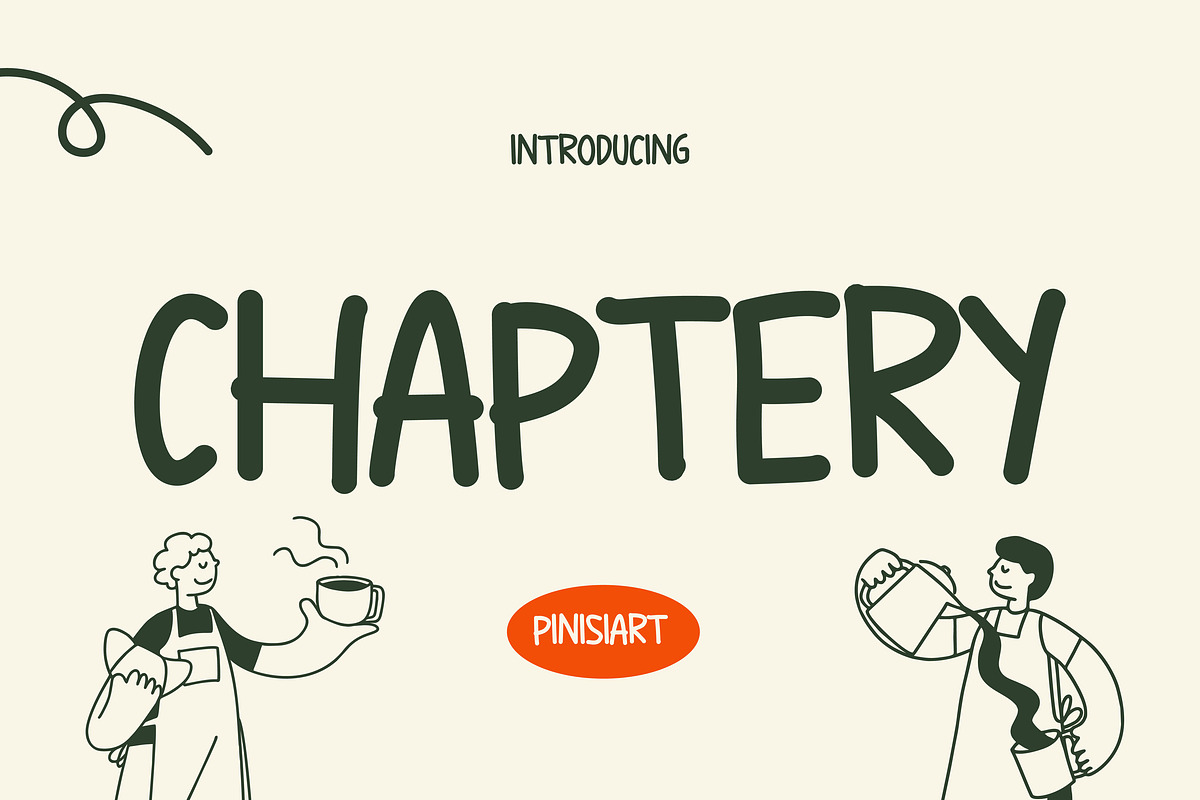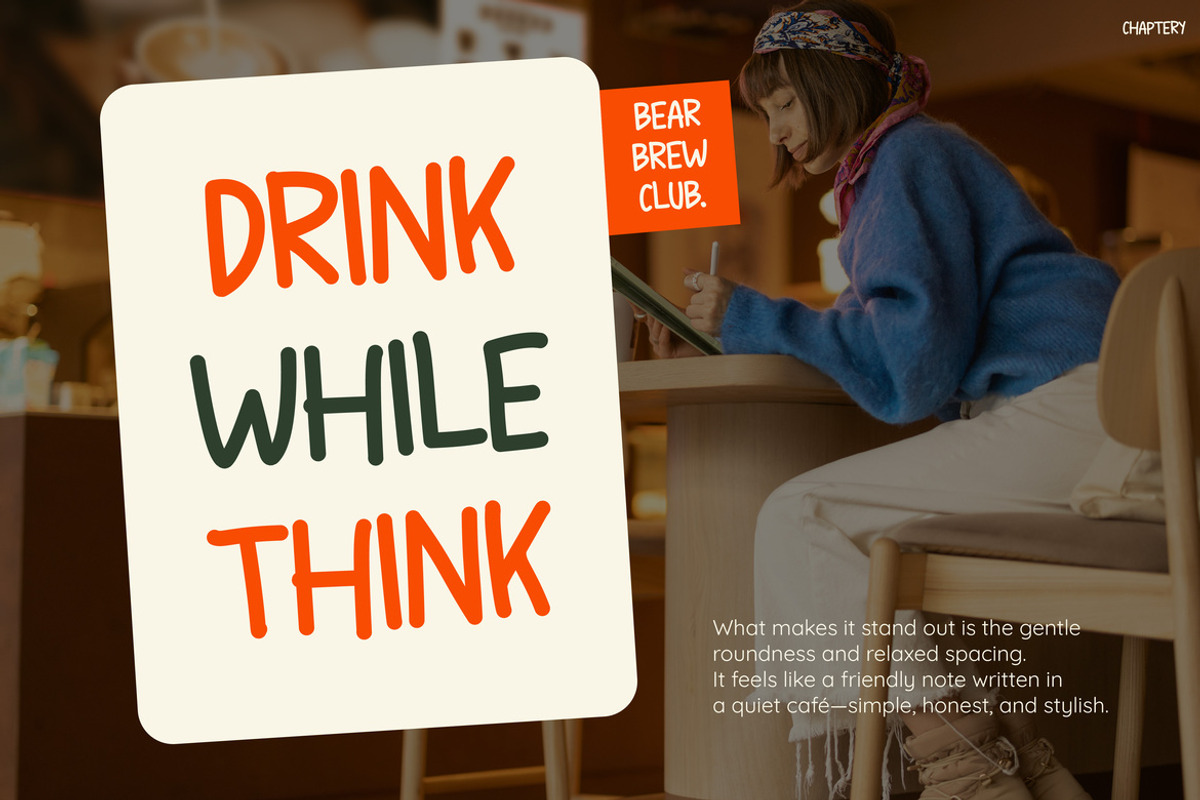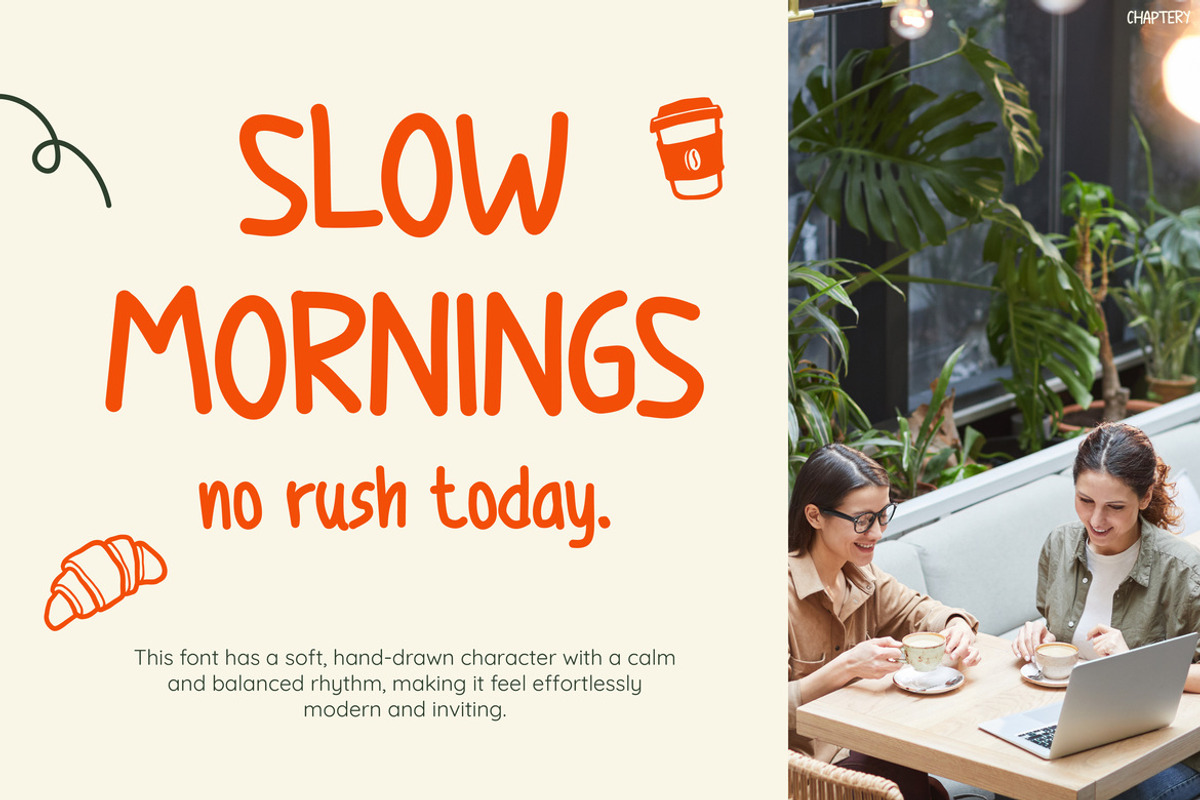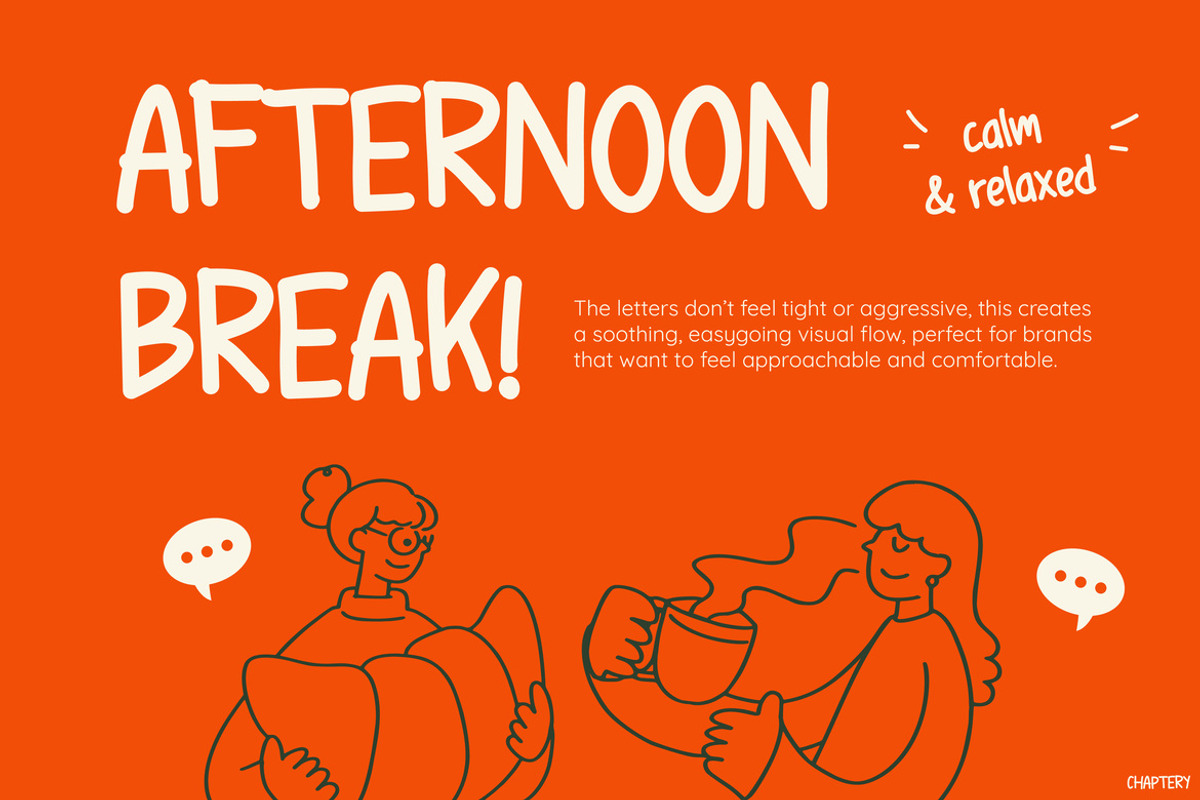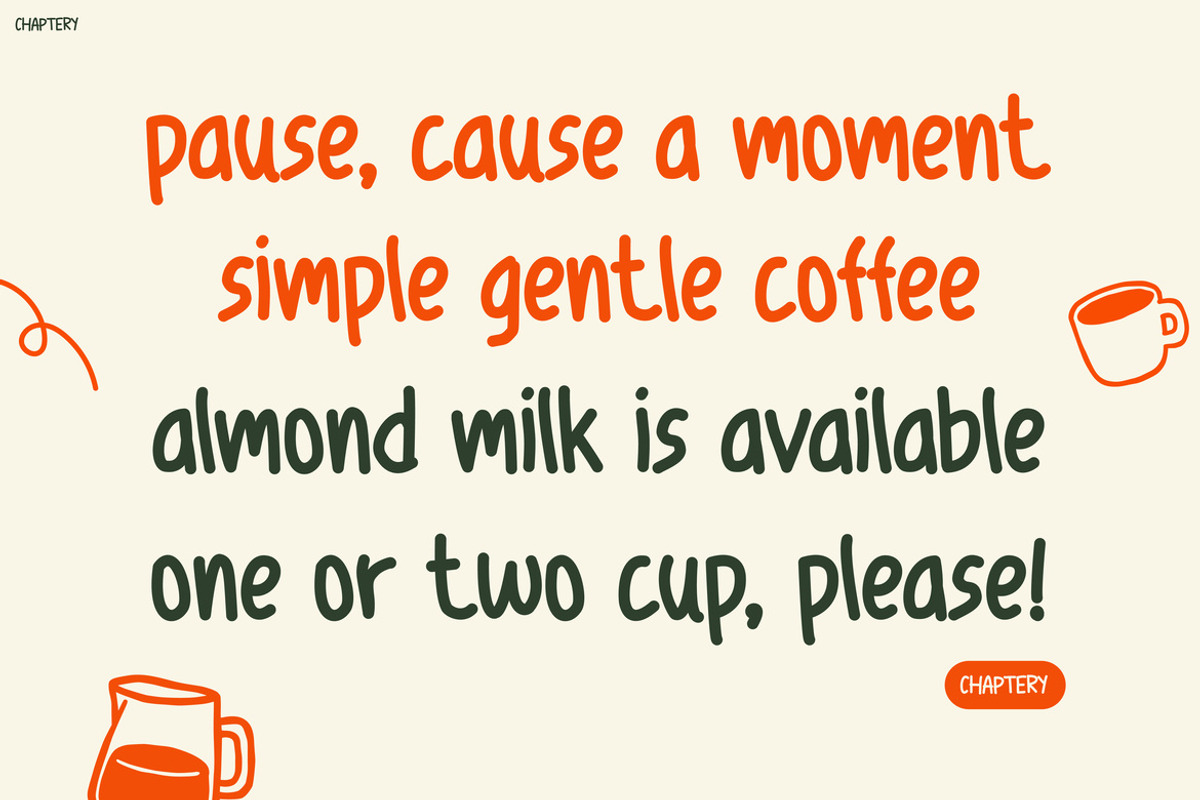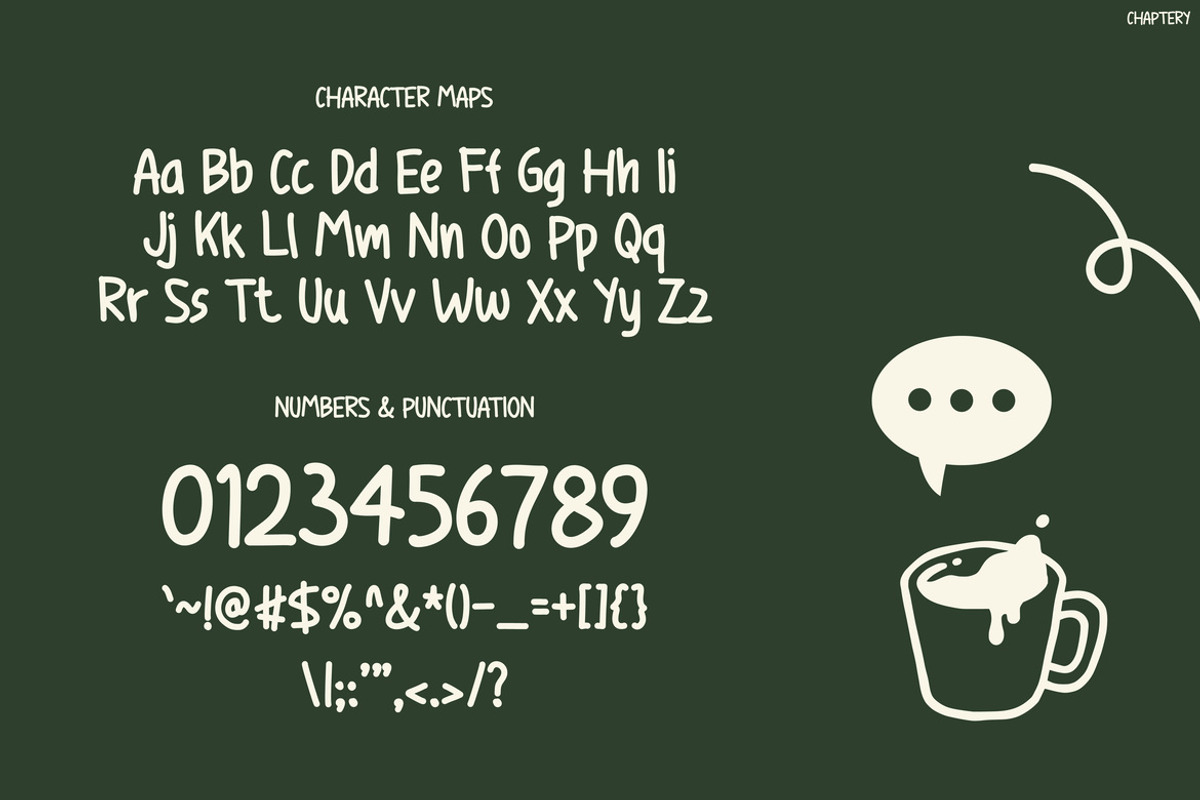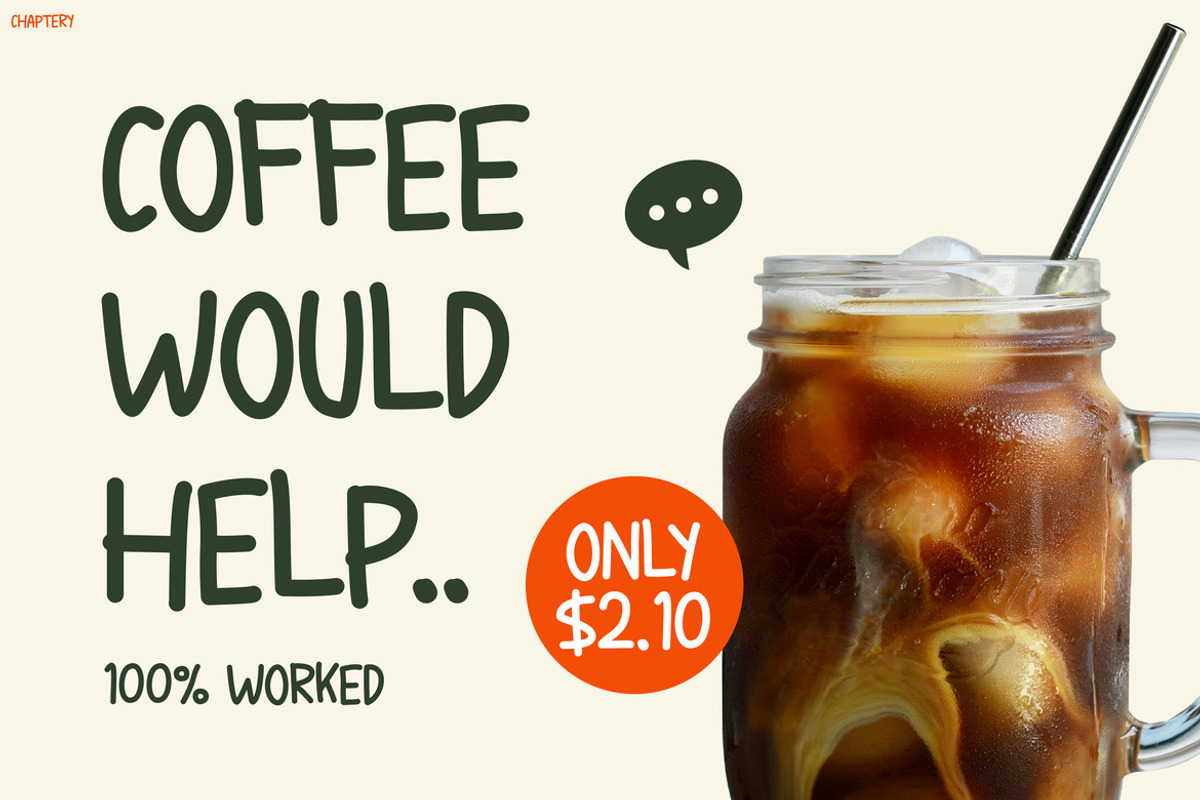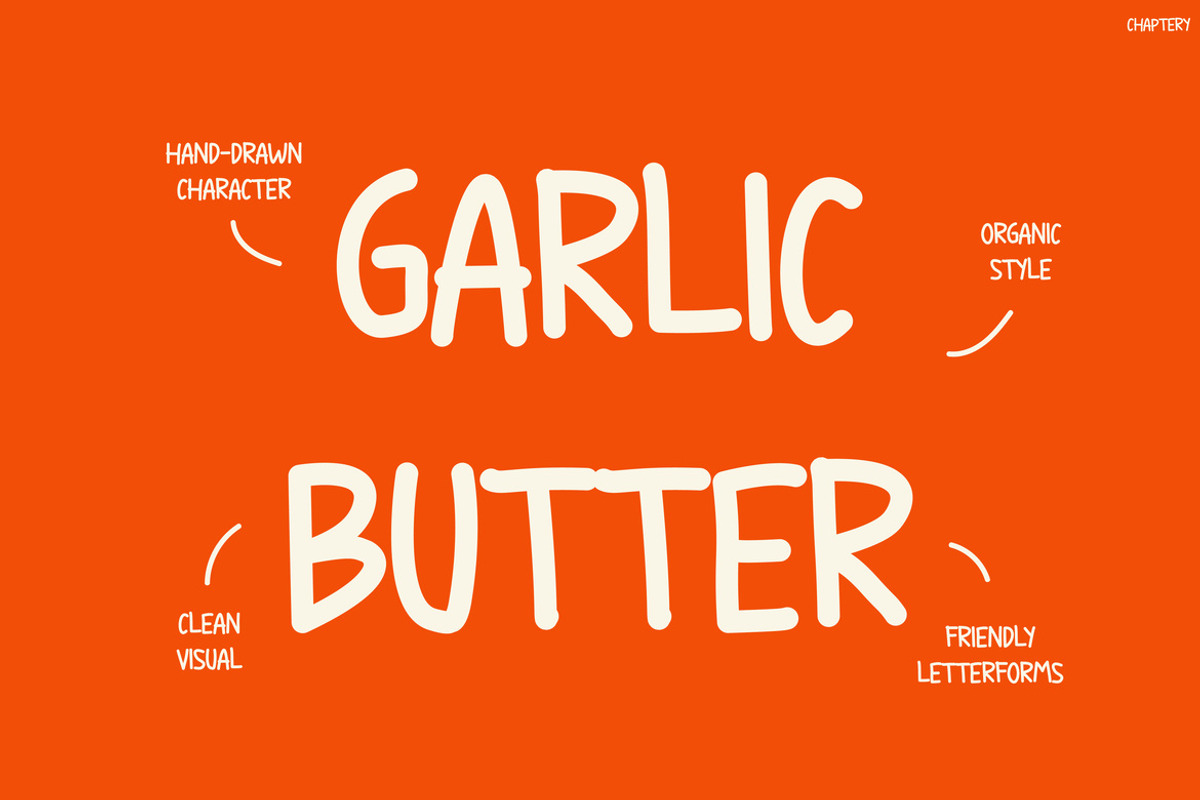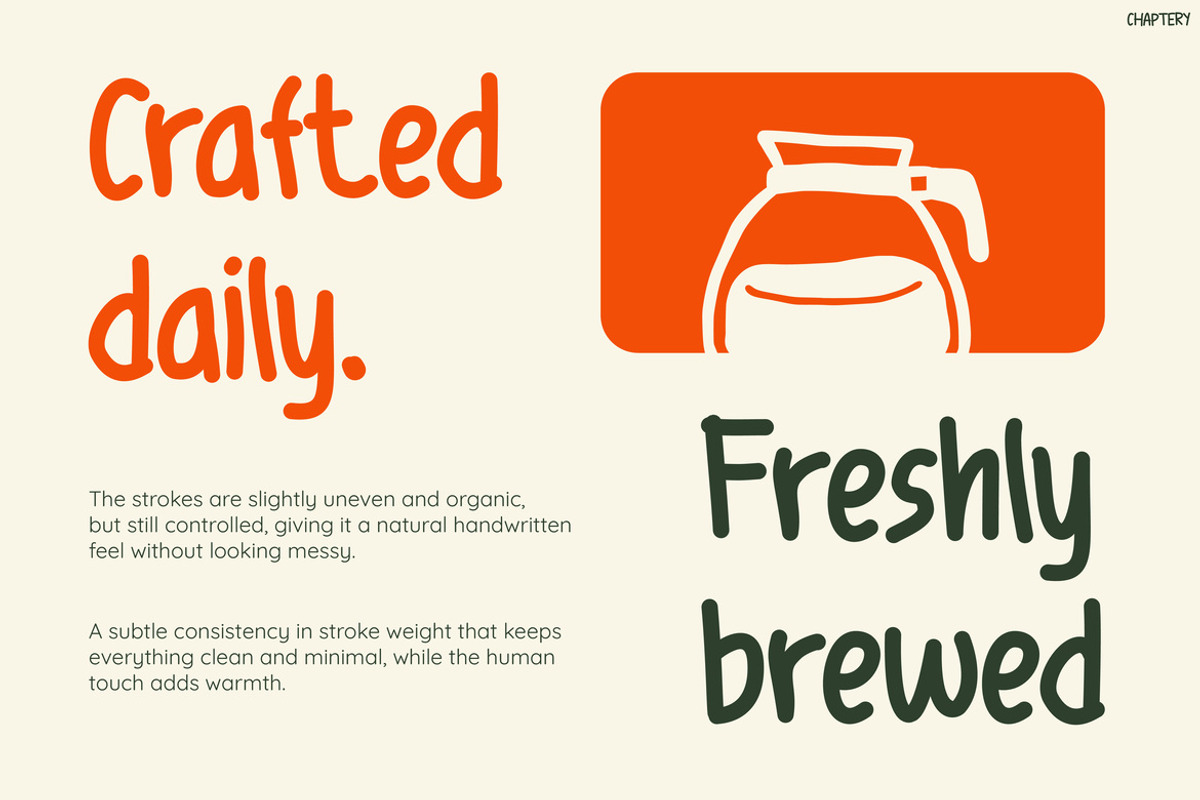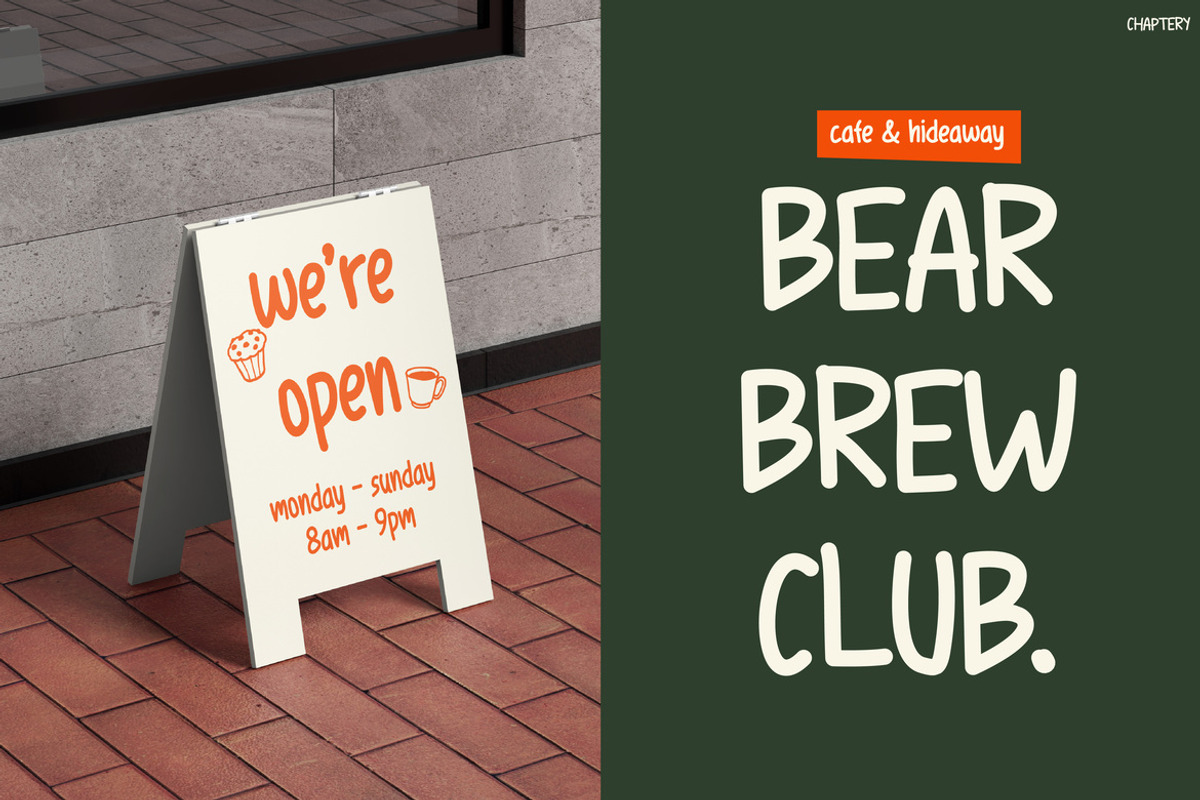
Chaptery
Chaptery – Cozy Handwritten Display Font
Kids Font Chaptery is a warm, handwritten display typeface that blends playful charm with a cozy, café-inspired aesthetic. At first glance, its soft curves and slightly uneven strokes immediately create a natural, human touch. Moreover, the font carries a relaxed and friendly personality, making every word feel inviting and authentic. Because of its organic letterforms and smooth flow, it delivers both visual appeal and readability. As a result, this font stands out as a perfect balance between casual elegance and playful expression, making it highly versatile across creative projects.
Kids Font Chaptery captures the essence of slow mornings, coffee breaks, and creative storytelling. In addition, each letter is thoughtfully designed to mimic natural handwriting, which gives your designs a personal and approachable feel. Furthermore, its clean yet expressive structure allows it to work beautifully in both bold headlines and supporting text. Not only that, but the font adapts seamlessly to different themes, whether warm and minimal or vibrant and playful. Consequently, designers can use it to create visuals that feel both stylish and relatable. At the same time, its handcrafted look enhances emotional connection, making your message more engaging and memorable.